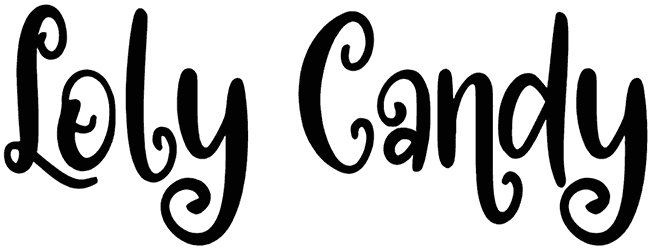
Loly Candy Font
The contrast in the thickness, rounded edges, and decorative letters makes Loly Candy a magical font. This swirly font embodies the spirit of Halloween, the thrill of surfing, and traditional aesthetics that can embrace anything made with love.
With this awesome Halloween font, you can design travel brochures, packaging designs, restaurant signs, and promotional materials for any outdoor event.